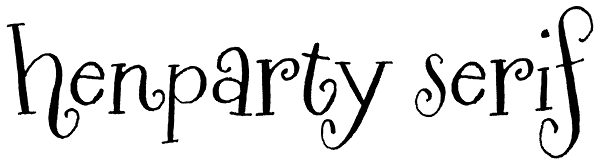
Henparty Serif
Originally created by the Tart Workshop's own Crystal Kluge as a logo for an online tea store for chicks, Henparty Serif and Henparty Sans are sure to delight! These fonts are perfect for baby announcements, giftware, any creative kid projects...